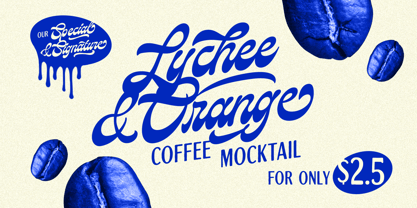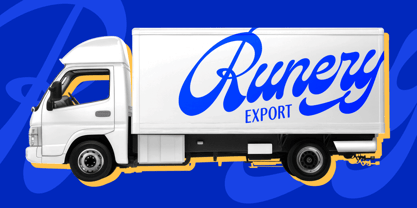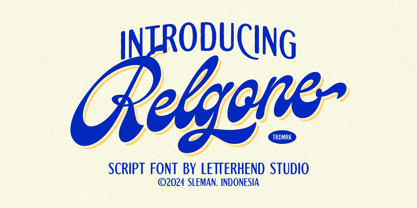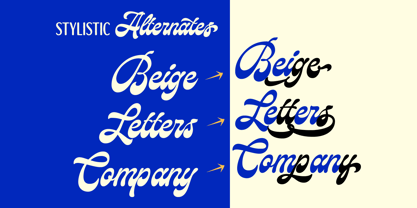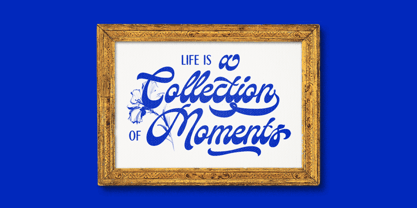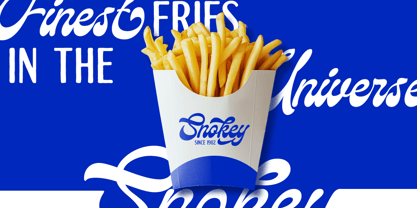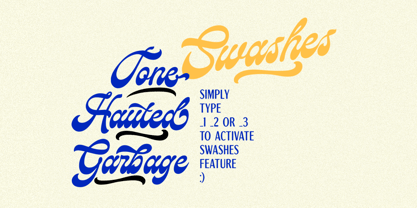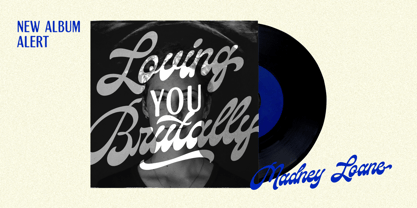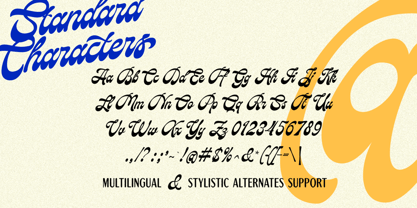
Relgone
La familia tipográfica Relgone fue diseñada por Hendry Juanda y publicada por Letterhend. Relgone contiene 1 estilos. Más información sobre esta familia
Relgone is a unique retro script. You can play around with alternates character. This font perfectly made to be applied especially in logo, and the other various formal forms such as invitations, labels, logos, magazines, books, greeting / wedding cards, packaging, fashion, make up, stationery, novels, labels or any type of advertising purpose.
Features :
• Uppercase & lowercase
• Numbers and punctuation
• Alternates Character
• Multilingual support